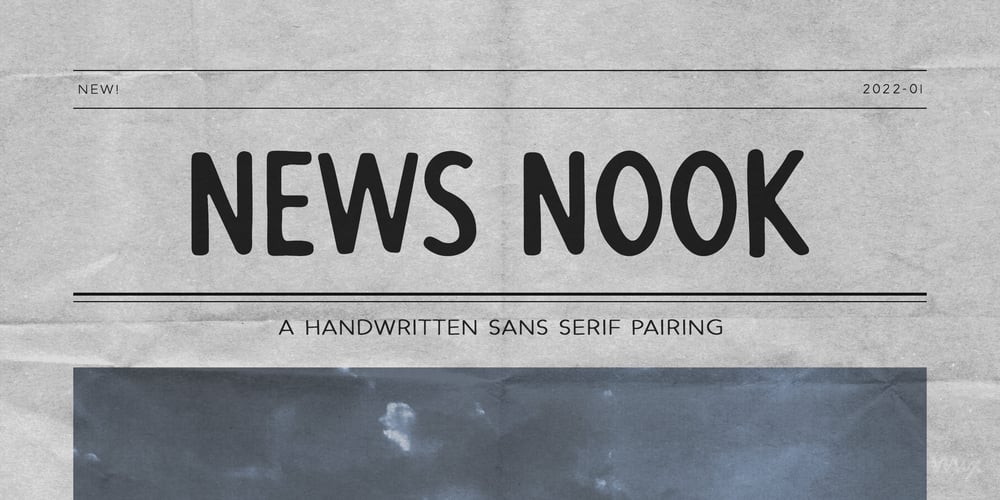
News Nook Font Family was designed by Mikko Sumulong and published by Mix Fonts. News Nook contains 2 styles and family package options. Introducing NEWS NOOK – a font family that captures the essence of newspaper headlines and front pages, with a rugged twist. This versatile sans-serif pairing is perfect for creating a modern, professional look that is both eye-catching and easy to read. With its unique ruggedness, it makes it stand out and suitable for outdoor designs.The font family includes two distinct styles: NEWS NOOK, a bold headline font, and NEWS NOOK MINI, a thin and stout sans-serif font. Together, they provide a range of options for creating headlines, subheadings, and body text that are sure to grab attention. The headline font is particularly great for creating bold and sturdy design elements.Inspired by the traditional newspaper style, NEWS NOOK brings a touch of nostalgia to any design project. But this font family is not just a replication of traditional newspaper style, it’s more of a modern take on publishing type with a handwritten spin. This makes it perfect for any print project, including magazines, newspapers, and more, creating a polished and professional look that is suitable for outdoor designs.NEWS NOOK (Regular) comes with the following glyphs: ABCDEFGHIJKLMNOPQRSTUVWXYZ abcdefghijklmnopqrstuvwxyz 0123456789 !@#$%^&*()`~♥❤✿•· ÷×+−±≈=≠≥≤[]:;’”,.|/?{}“”‘’-–—_ …‚„©®™‹›«»°¹²³ªº¡¿₱¢€£¥¶§№† ÁÀÂÄÃÅĂĀĄÆĆĈČĊÇÐĐÉÈÊËĖĒĘḞǴĜǦḠĠĤȞḦḢIÍÌÎÏĪĮĴḰǨŁḾṀŃÑŇ ÓÒÔÖÕŌŐØŒṔṖŔŘṘŚŜŠŞȘŤṪȚÚÙÛÜŨŮŬŪŰŲẂẀŴẄẆÝŶŸŹẐŽŻƵ áàâäãåăāąæćĉčċçðđéèêëėēęḟǵĝǧḡġĥȟḧḣıíìîïīįĵḱǩłḿṁńñň óòôöõōőøœṕṗŕřṙśŝšşșťṫțúùûüũůŭūűųẃẁŵẅẇýŷÿźẑžżƶ NEWS NOOK MINI comes with the following glyphs: ABCDEFGHIJKLMNOPQRSTUVWXYZ abcdefghijklmnopqrstuvwxyz 0123456789 !@#$%^&*()`~♥❤✿•· ÷×+−±≈=≠≥≤[]:;’”,.|/?{}“”‘’-–—_ …‚„©®™‹›«»°¹²³ªº¡¿₱¢€£¥¶§№† ÁÀÂÄÃÅĂĀĄÆĆĈČĊÇÐĐÉÈÊËĖĒĘḞǴĜǦḠĠĤȞḦḢIÍÌÎÏĪĮĴḰǨŁḾṀŃÑŇ ÓÒÔÖÕŌŐØŒṔṖŔŘṘŚŜŠŞȘŤṪȚÚÙÛÜŨŮŬŪŰŲẂẀŴẄẆÝŶŸŹẐŽŻƵ áàâäãåăāąæćĉčċçðđéèêëėēęḟǵĝǧḡġĥȟḧḣıíìîïīįĵḱǩłḿṁńñň óòôöõōőøœṕṗŕřṙśŝšşșťṫțúùûüũůŭūűųẃẁŵẅẇýŷÿźẑžżƶ